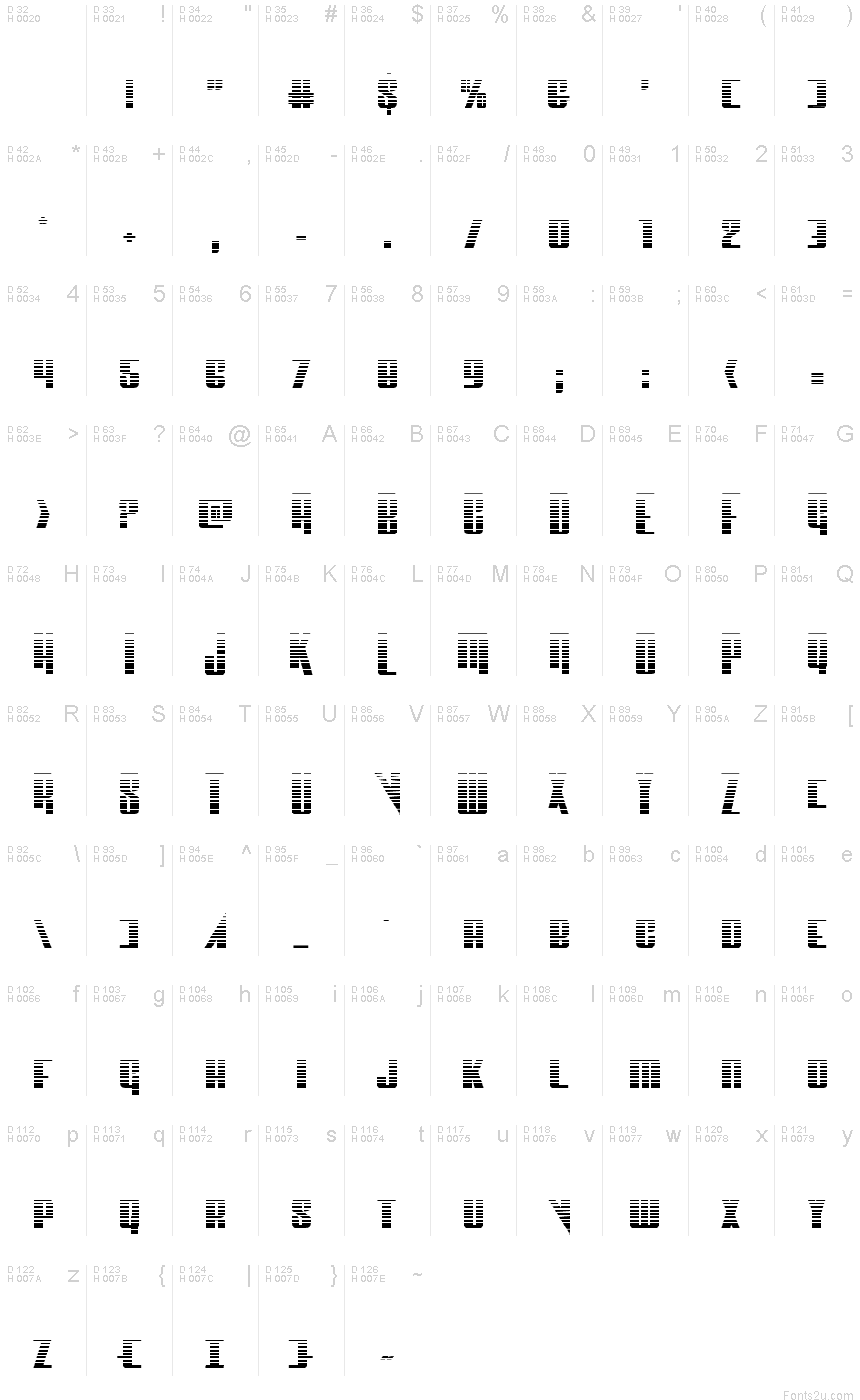
Vindicator Gradient from Iconian Fonts is a free retro-futuristic eroded display font with broad lettering sliced into tight horizontal bands. The effect is crisp, mechanical, and fast.
Motorsport branding and science-fiction title cards both benefit from its speed-line texture and hard-edged silhouette. Album covers and event posters can use the repeated gaps to suggest scanning screens, broadcast interference, or rapid motion. In digital graphics, the stripes can continue into interface panels and background patterns, turning the lettering into part of the image.
Vindicator Gradient